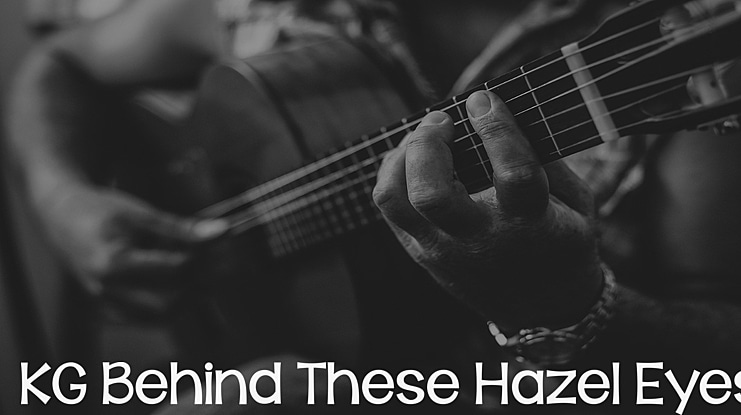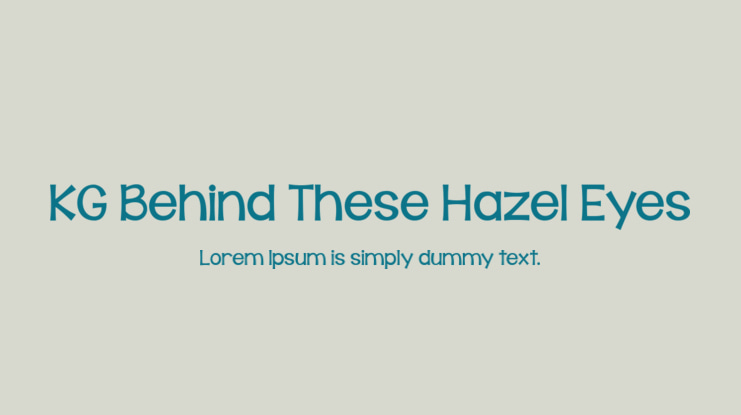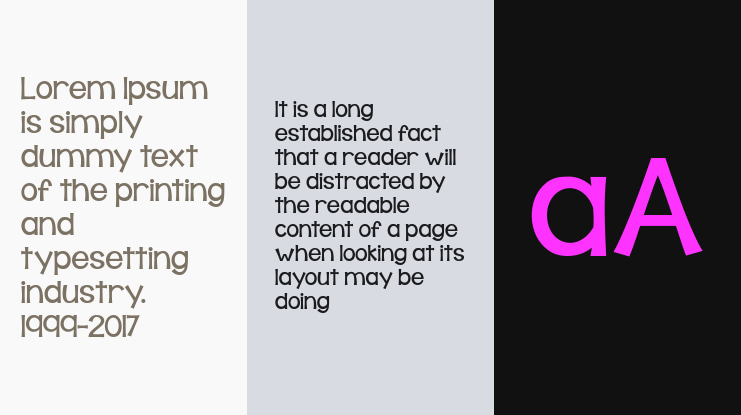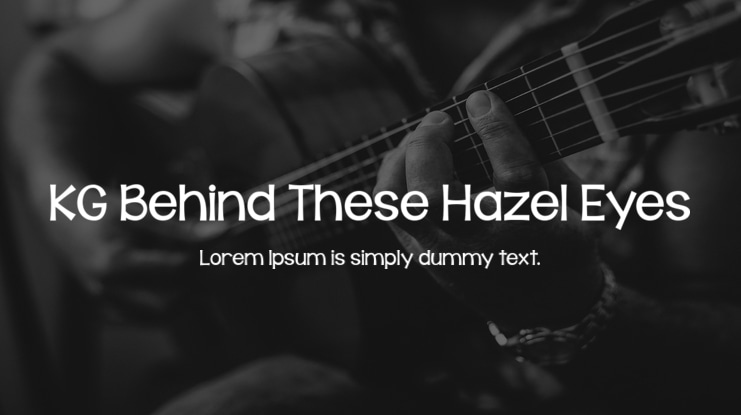
KG Behind These Hazel Eyes Font
Kimberly Geswein
Perfect for teachers, this font has enough glyphs to cover 80+ languages and extra math symbols! It is neat and legible for early readers!